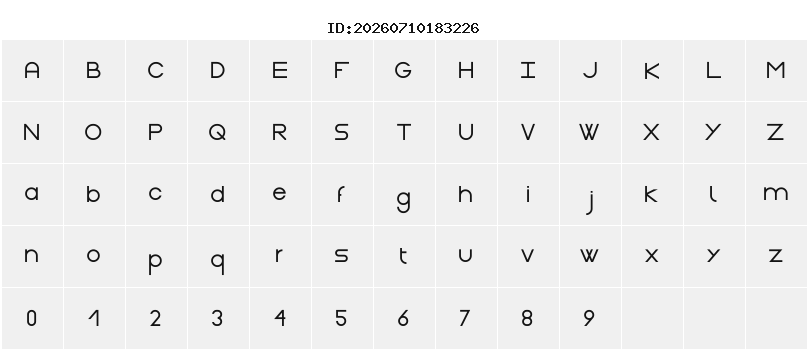
• Font Name: Gasalt
• Font Style: Black
• Full Font Name: Gasalt Black
• PostScript Name: Gasalt-Black
About Gasalt.ttf
Gasalt.ttf is a modern, elegant sans-serif font designed for ultimate readability and visual harmony. Perfect for branding, headlines, web design, and print materials.